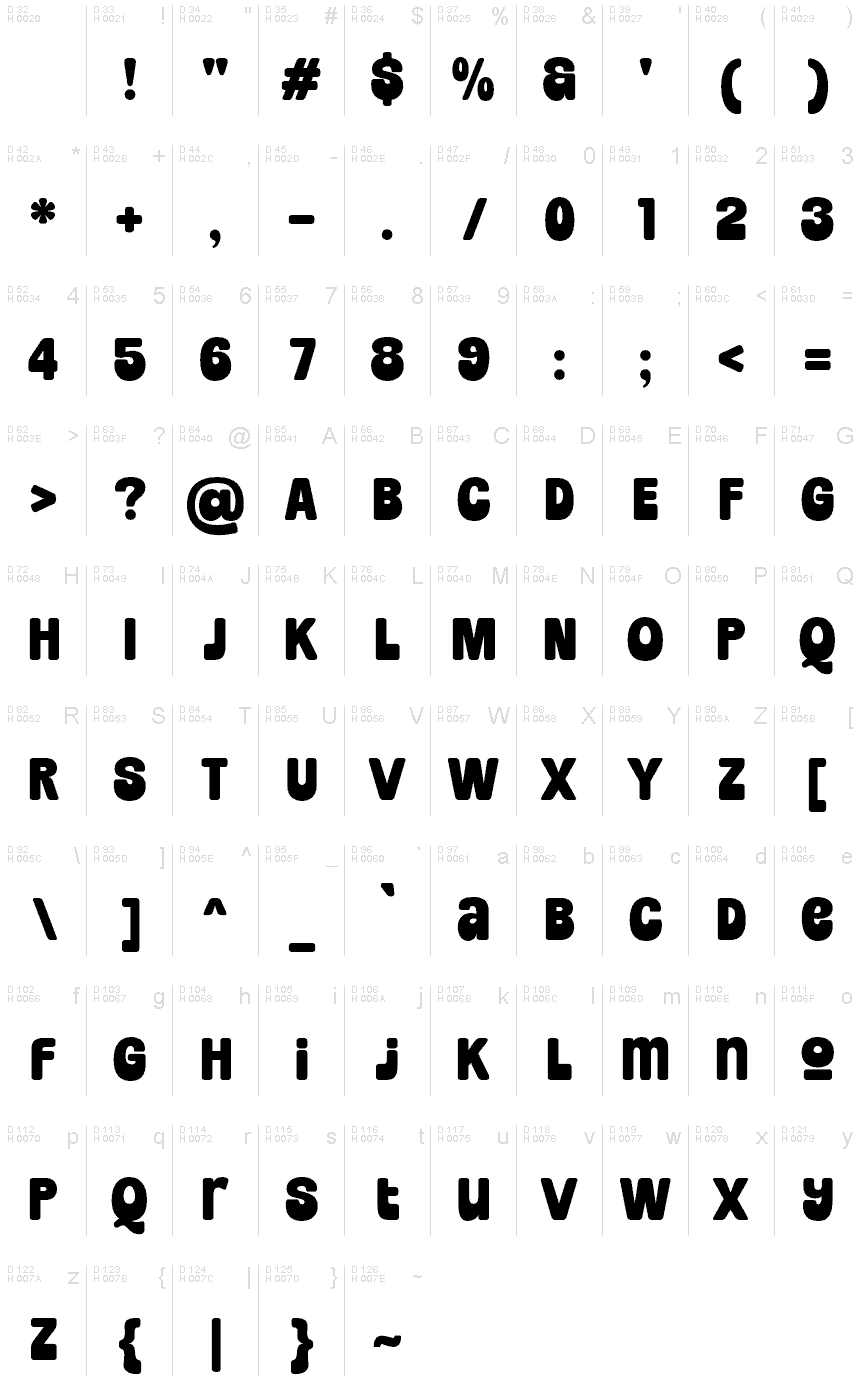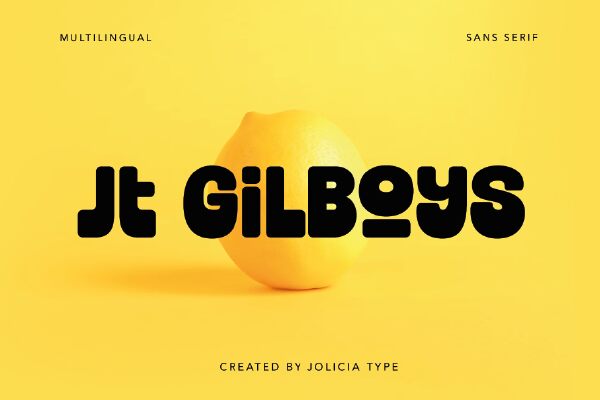
JtGilboys-Regular
Jt Gilboys font by Jolicia Type Foundry is a bold display type with a cartoon style. Each character is developed using rounded geometric shapes that grant cohesiveness which results in easiness on the eyes. Its approachable and friendly appearance insists on inserting some fun whether into branding, packaging, or webpage design. If you’re looking for something modern with a retro-inspired touch to it, this might be your pick.
This free cartoon font for headlines can still be implemented in long-body texts. Other applications include video titles, print designs (magazines, newspapers), minor projects like posters and flyers, digital presentations, books covers…
Jt Gilboys by Jolicia Type